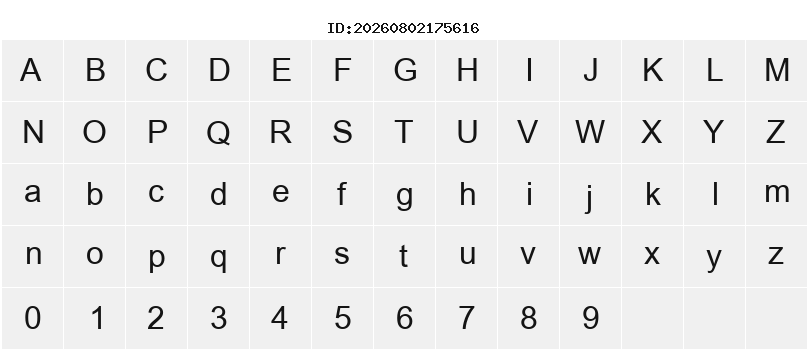
Noxchi Arial.ttf is a modern, elegant sans-serif font designed for ultimate readability and visual harmony. Perfect for branding, headlines, web design, and print materials.